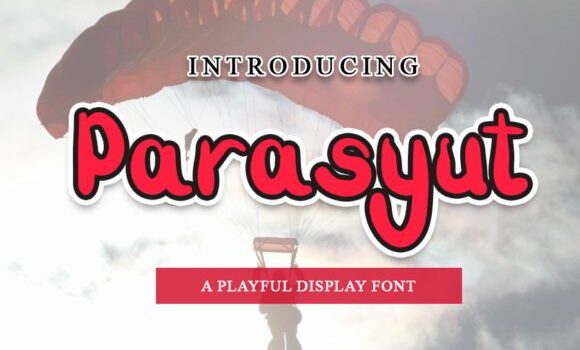
Parasyut Font – Free Download Introduction to Parasyut Font Parasyut is a cute and playful handwritten font. 📸 Preview Gallery 4 images 📌 Product Name Parasyut Font 👤 Author shiddiq.art 📂 Category Explore ⬇️ Download Parasyut Font FREE Free Download